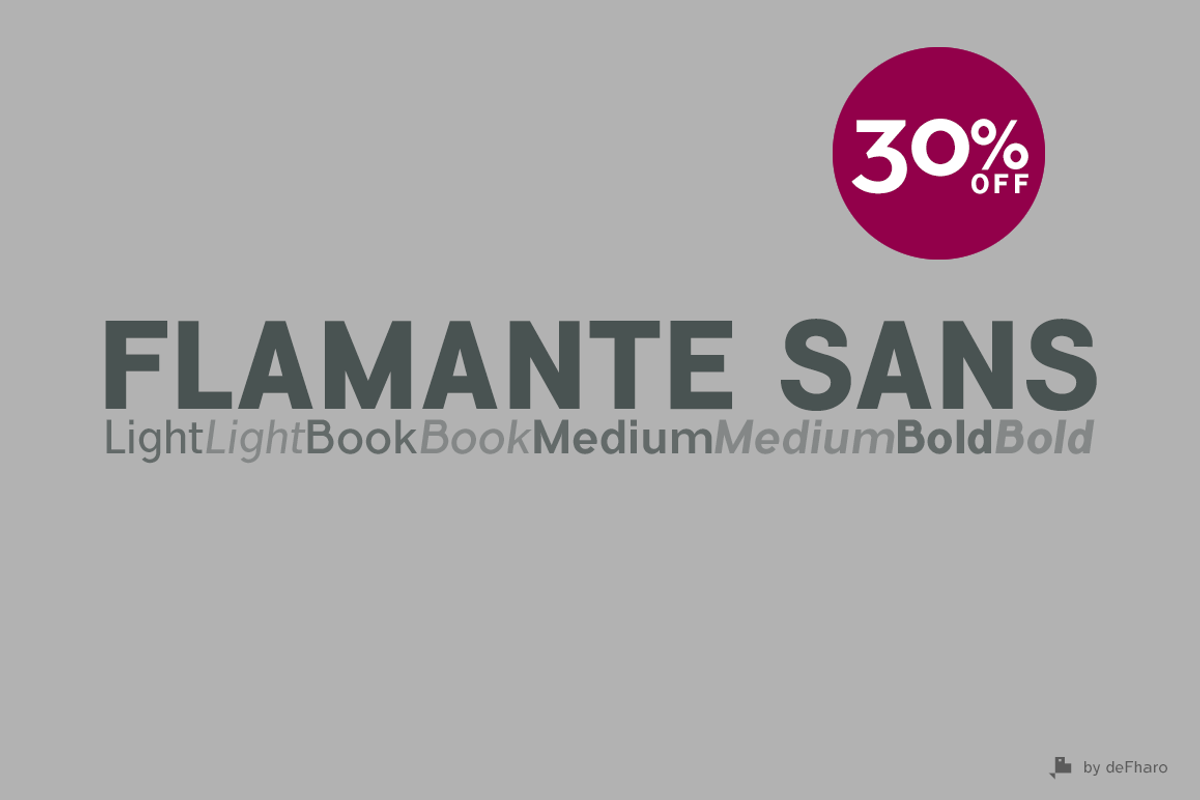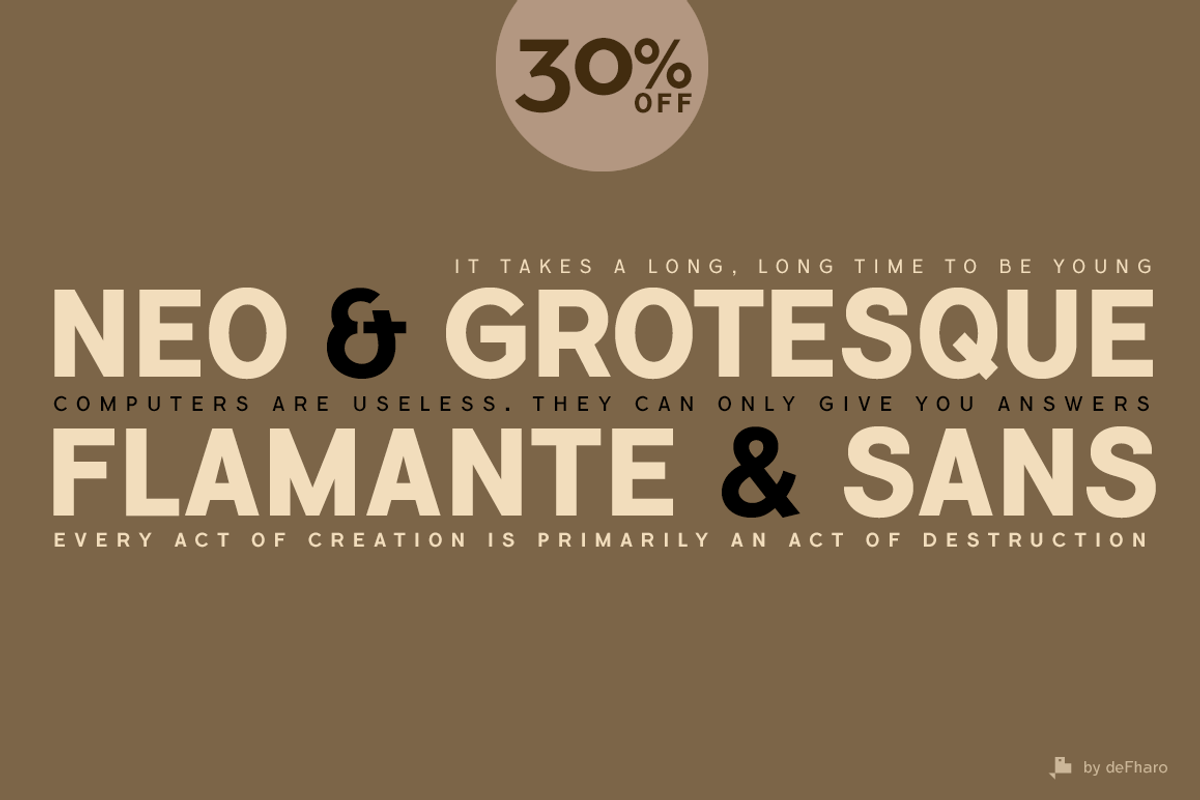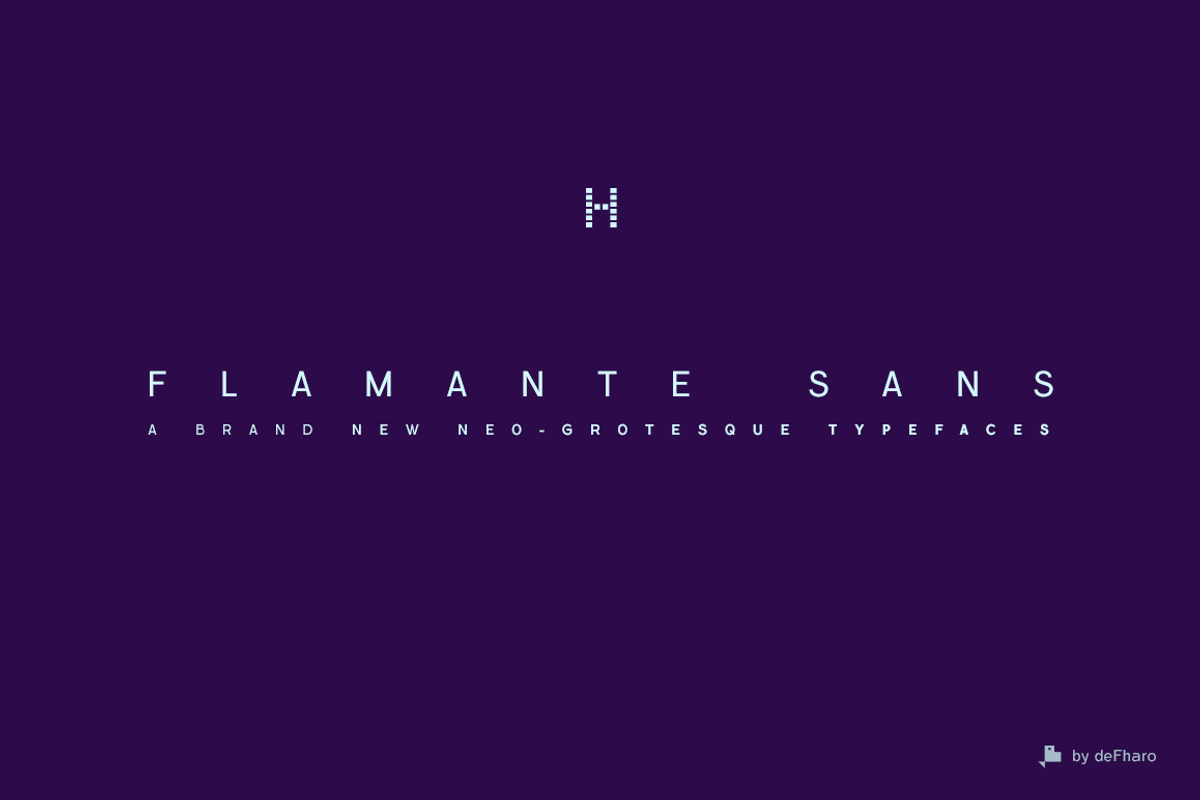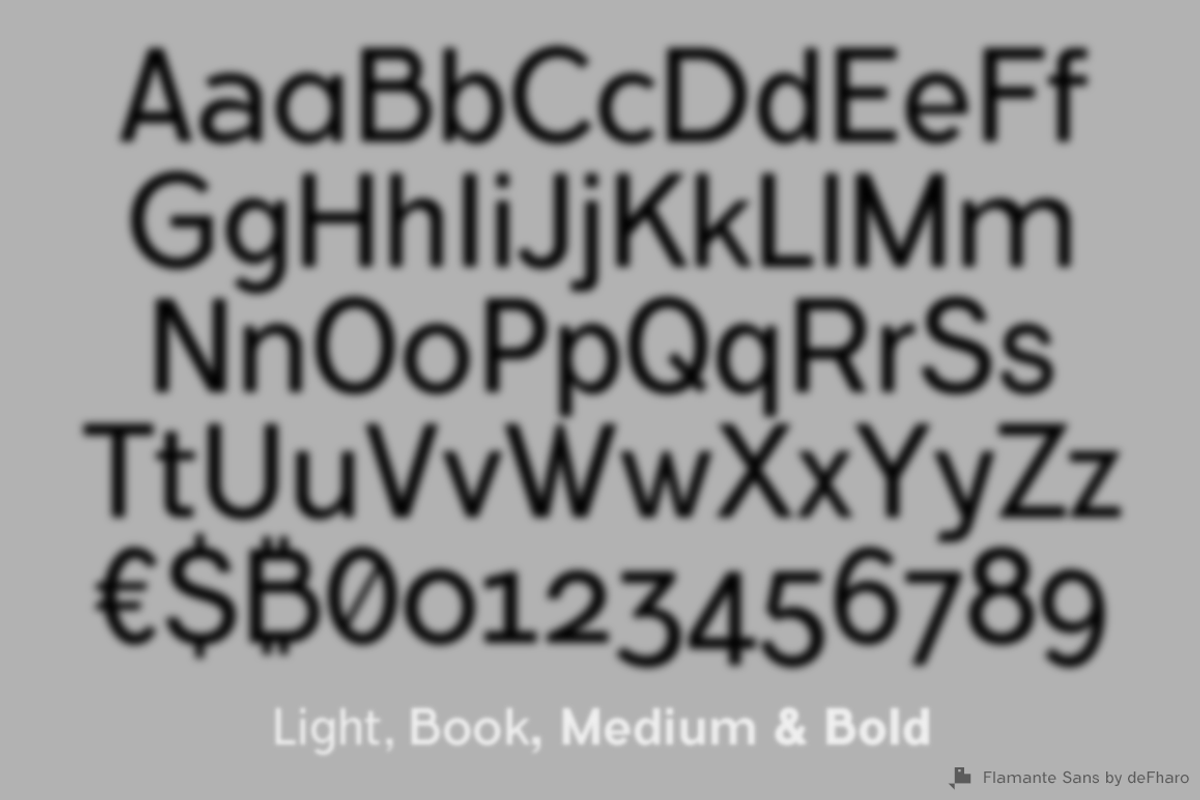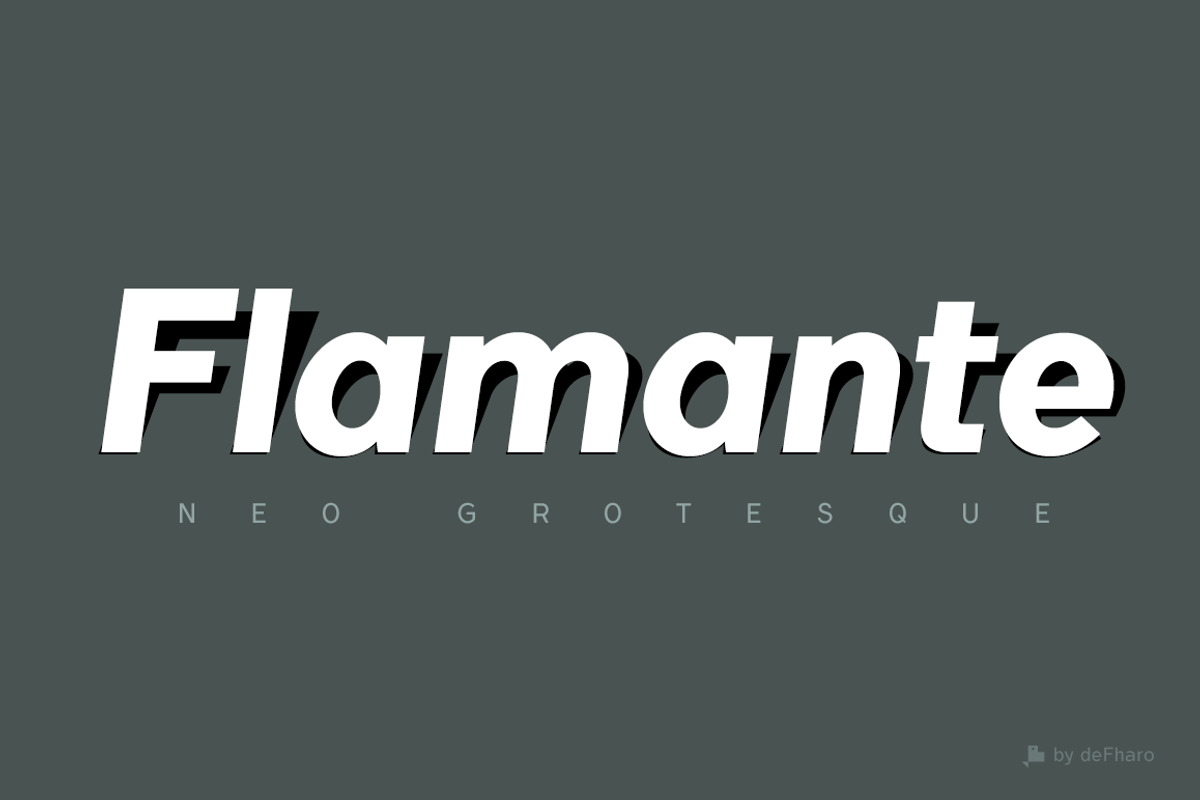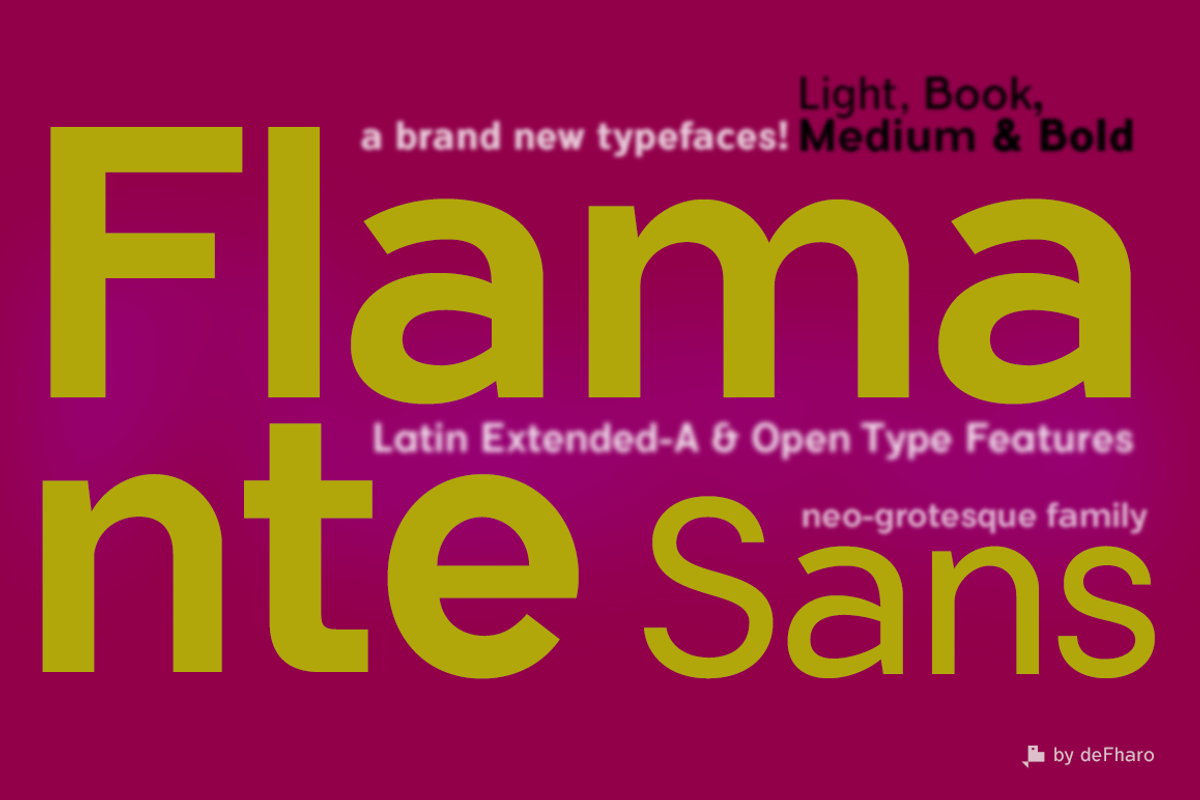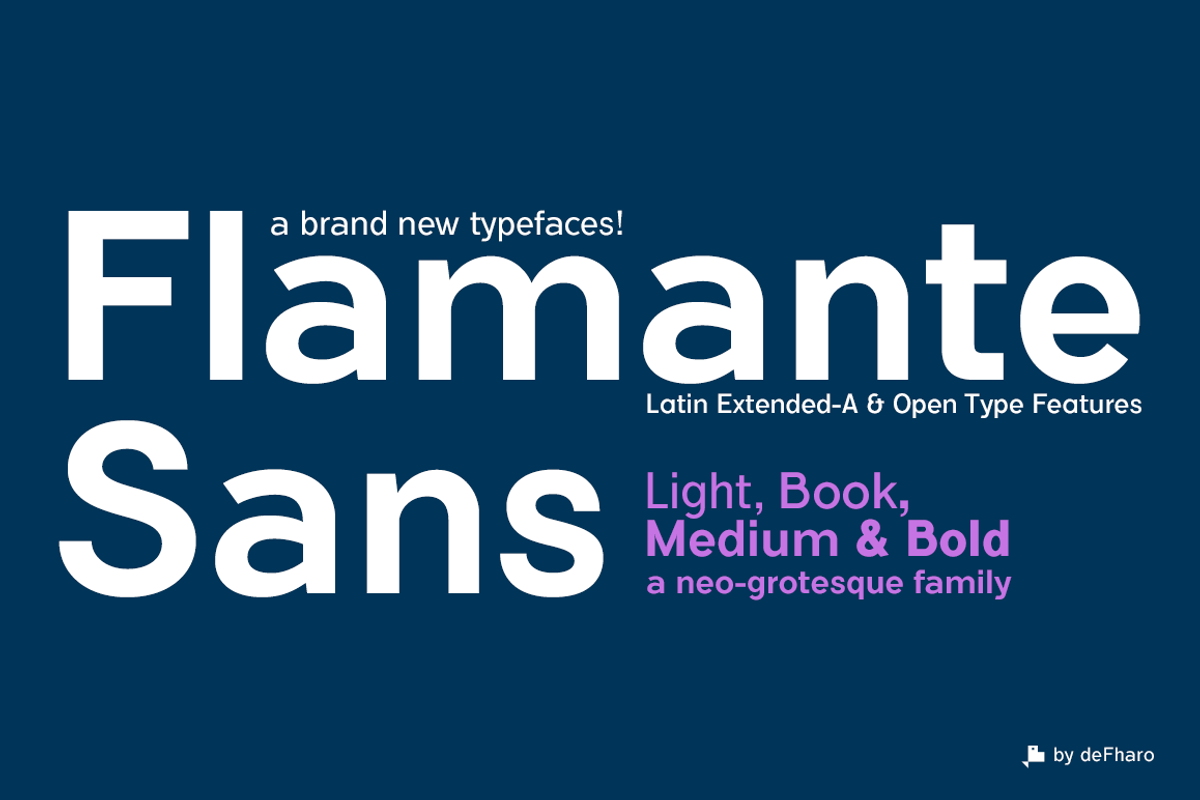
Flamante Sans -8 fonts-
Flamante Sans is a group of eight corporate typographies of geometric construction, without auctions and neo-grotesque style, are neutral fonts with excellent readability for titles, short texts or for use in signage. The fonts group consists of 4 weights: Light, Book, Medium & Bold and their respective italics.
Flamante Sans includes the symbol of Bitcoin.
OpenType Features: All Alternates, Alternate Annotation Forms, Capital Spacing, Denominators, Discretionary Ligatures, Extended Fractions, Historical Forms, Historical Ligatures, Inferiors, Kerning, Localized Forms, Numerators, Oldstyle Figures, Ordinals, Scientific Inferiors, Slashed Zero, Standard Ligatures, Subscript, Superior letters, Superiors, Superscript.